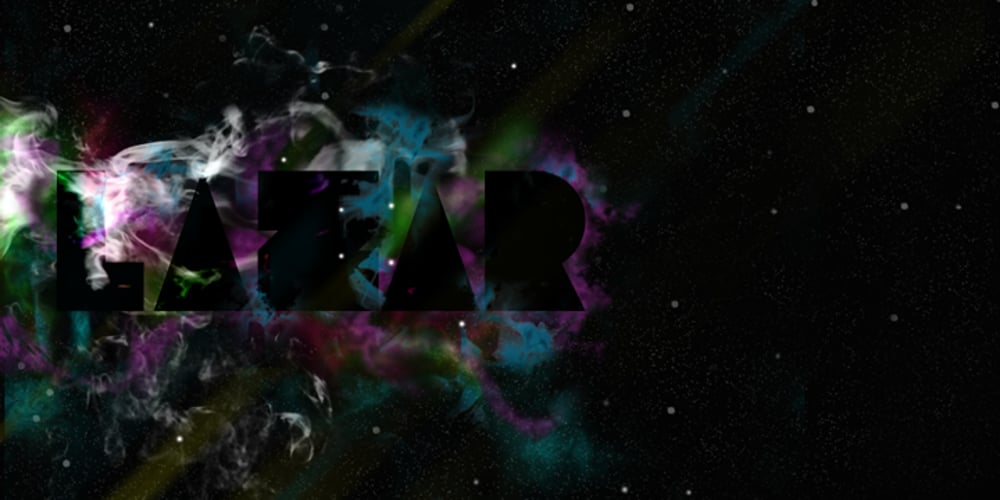
Lazar
Lazar font
Lazar Font Family was designed by Jonathan Bennett and published by Discourse Type. Lazar contains 4 styles and family package options. Lazar takes its inspiration from the designs of early Russian designers like El Lissitzky. Designed initially as a custom font for a trainers collecting website it was expanded into a full family including a stencil, rounded and distressed styles. Lazar has a fresh and vibrant feel and is very flexible with its alternates lowercase characters, small caps and discretionary ligatures. It works well on posters, flyers and magazine. Mix all four styles to achieve unique typographic designs.